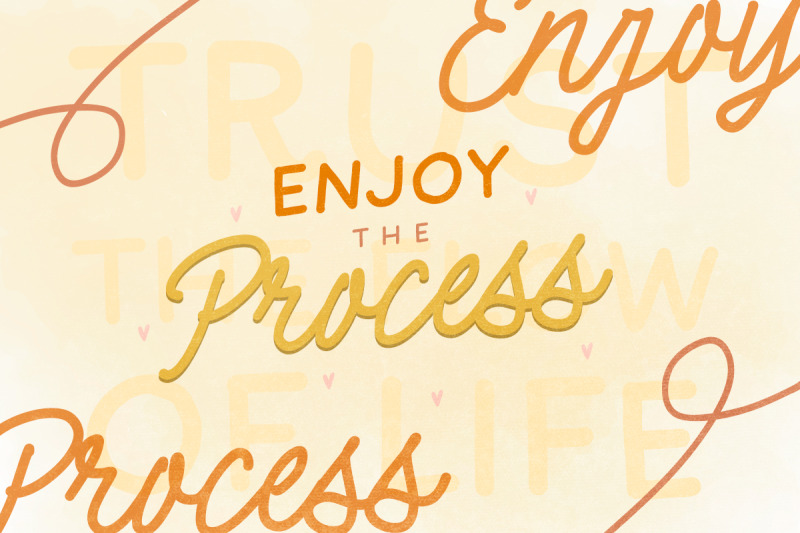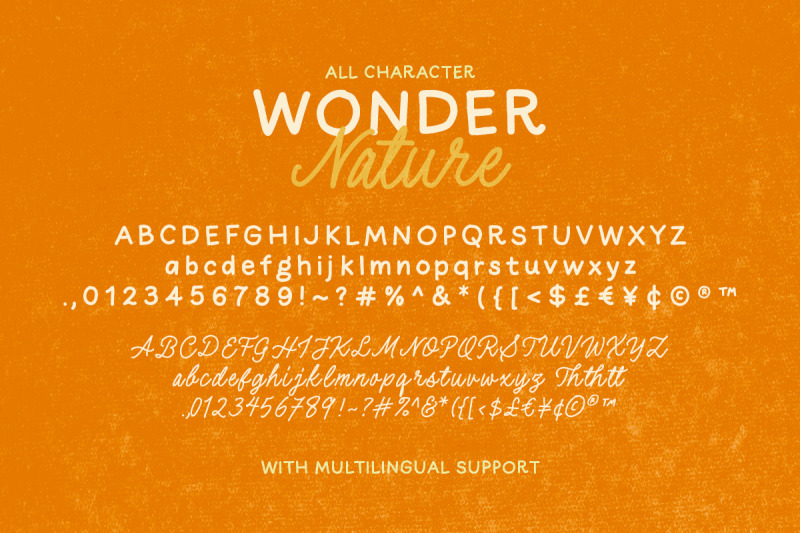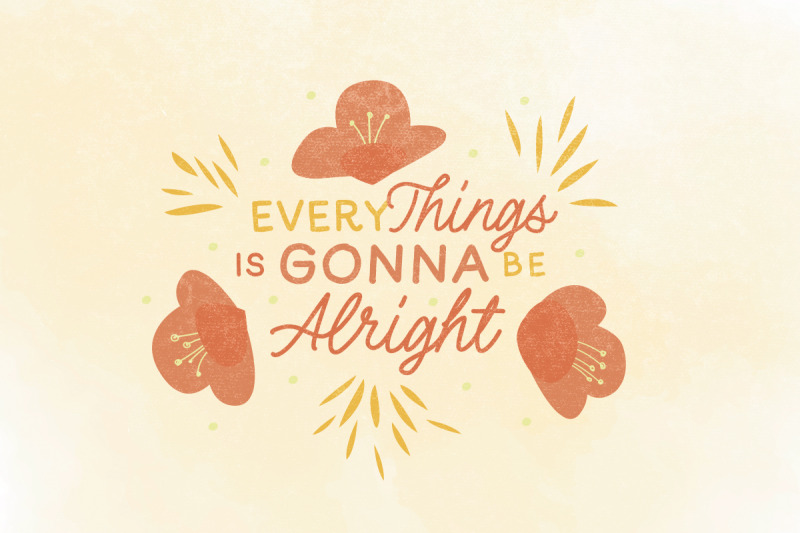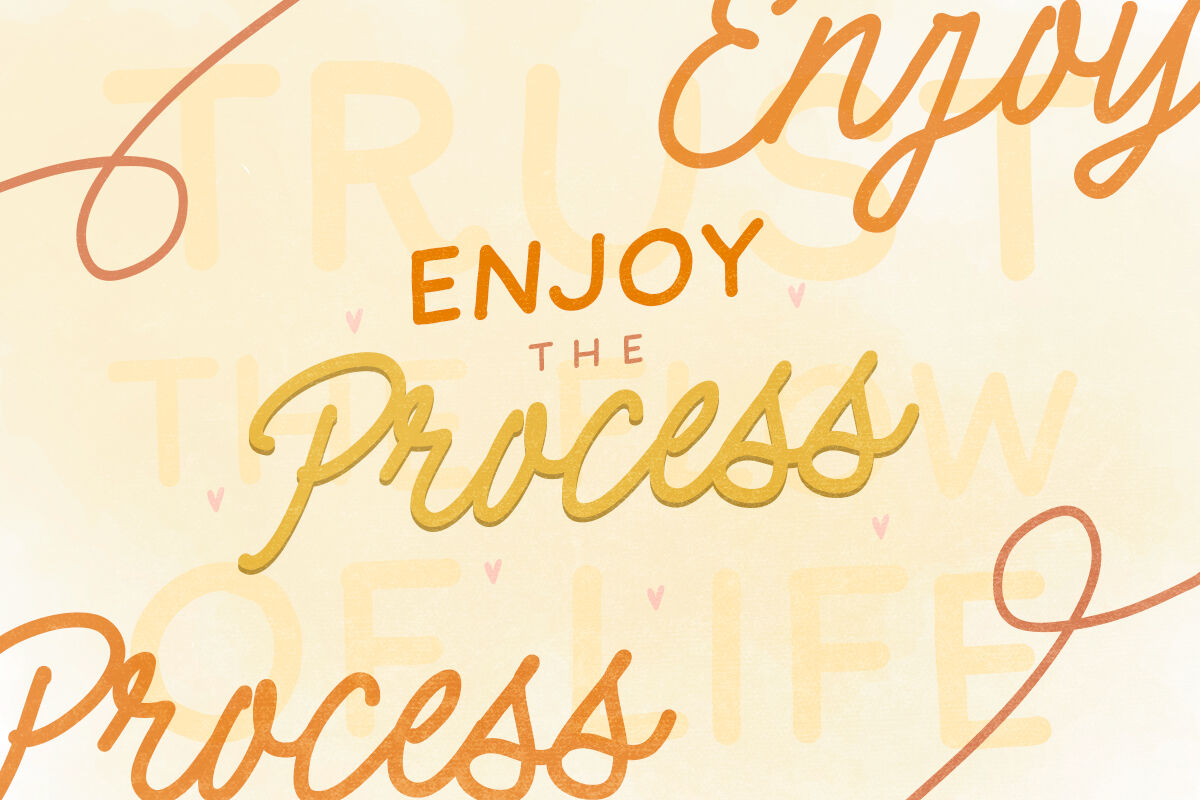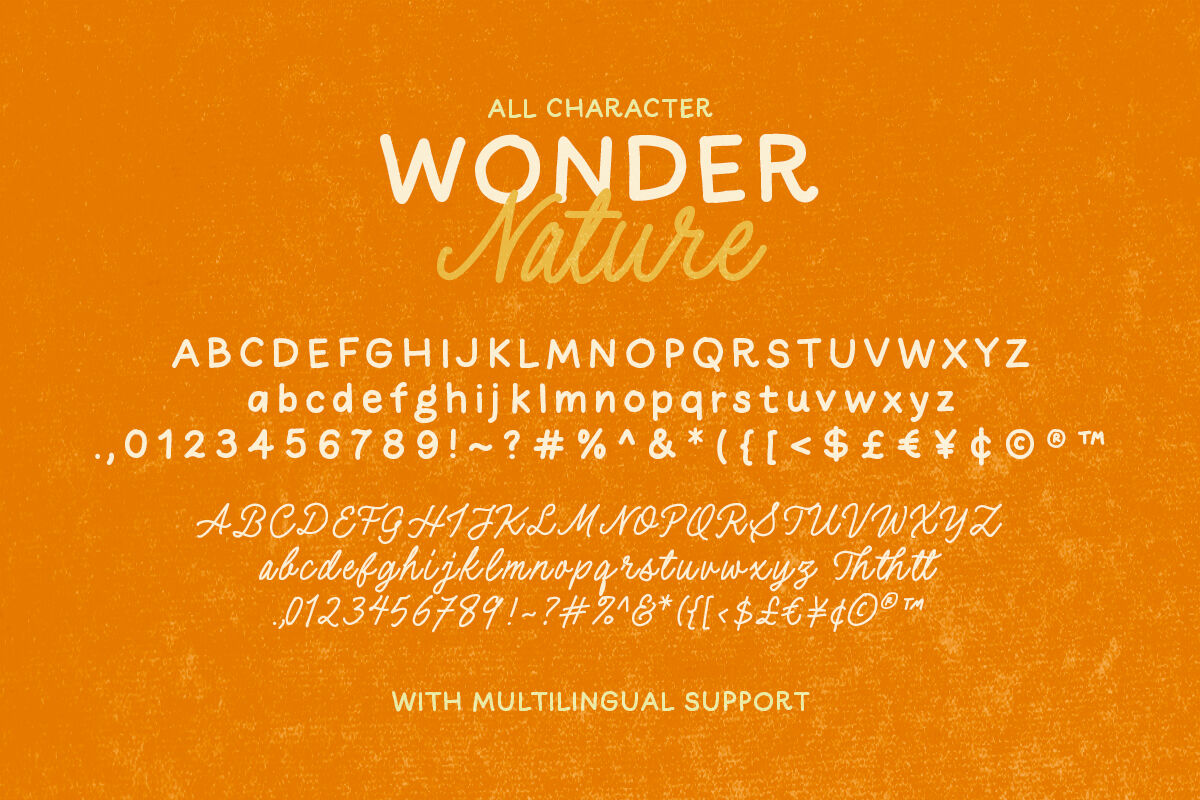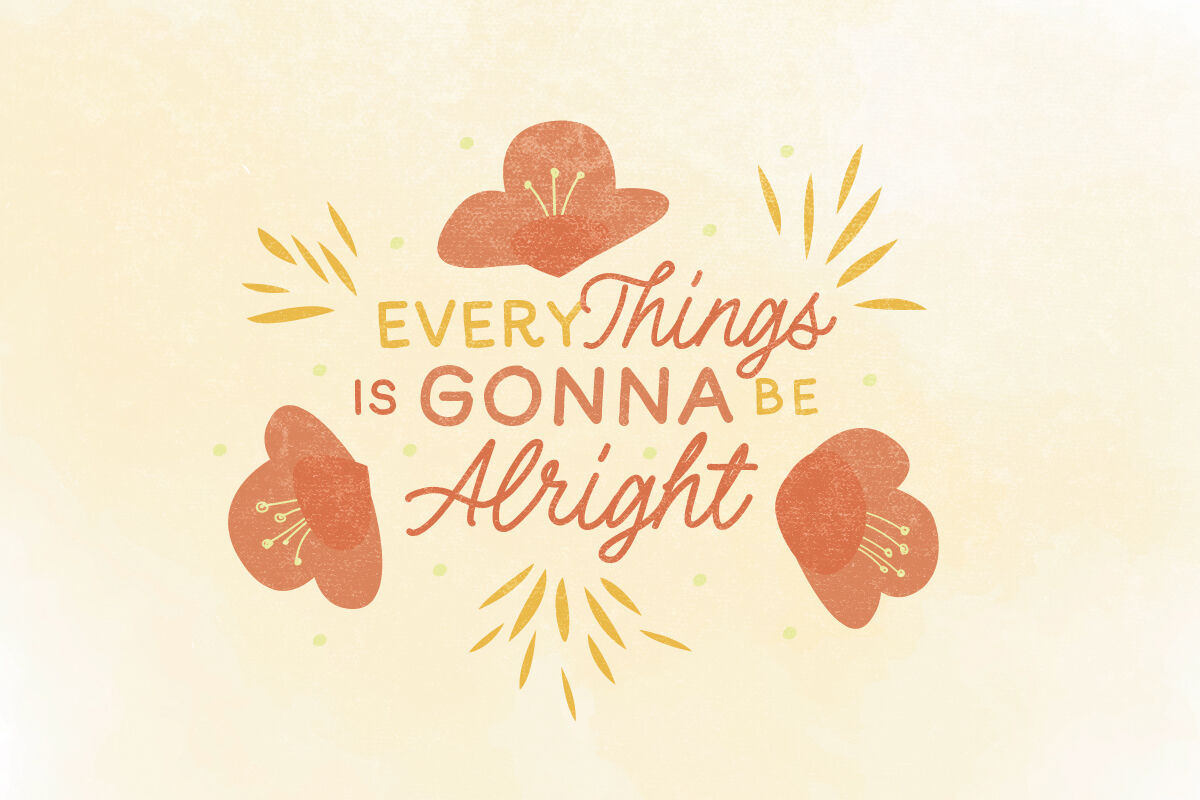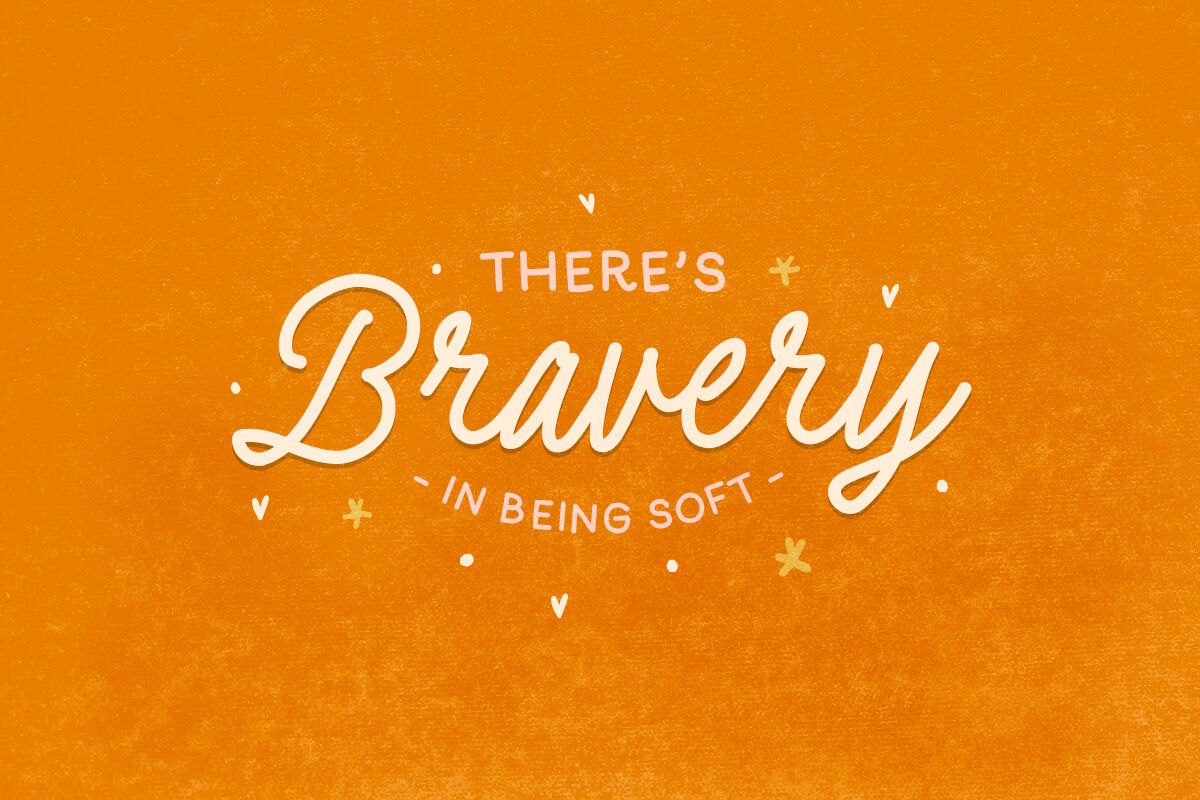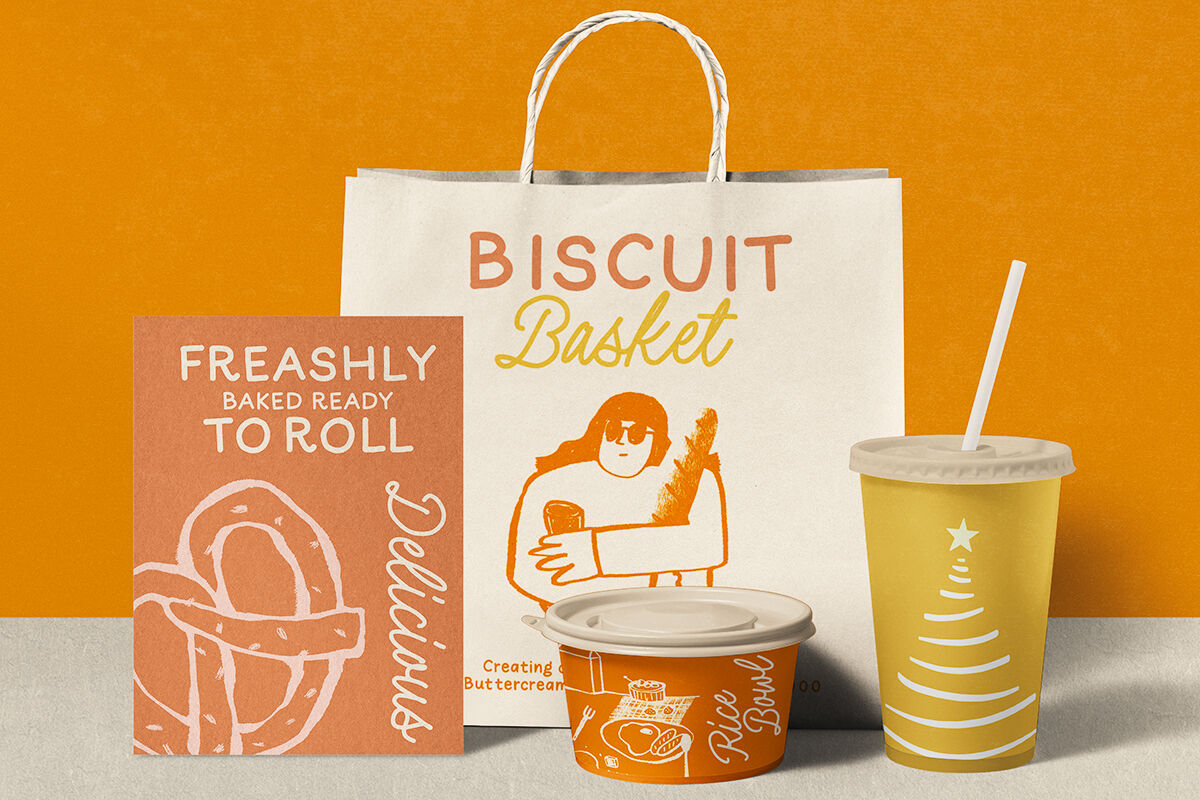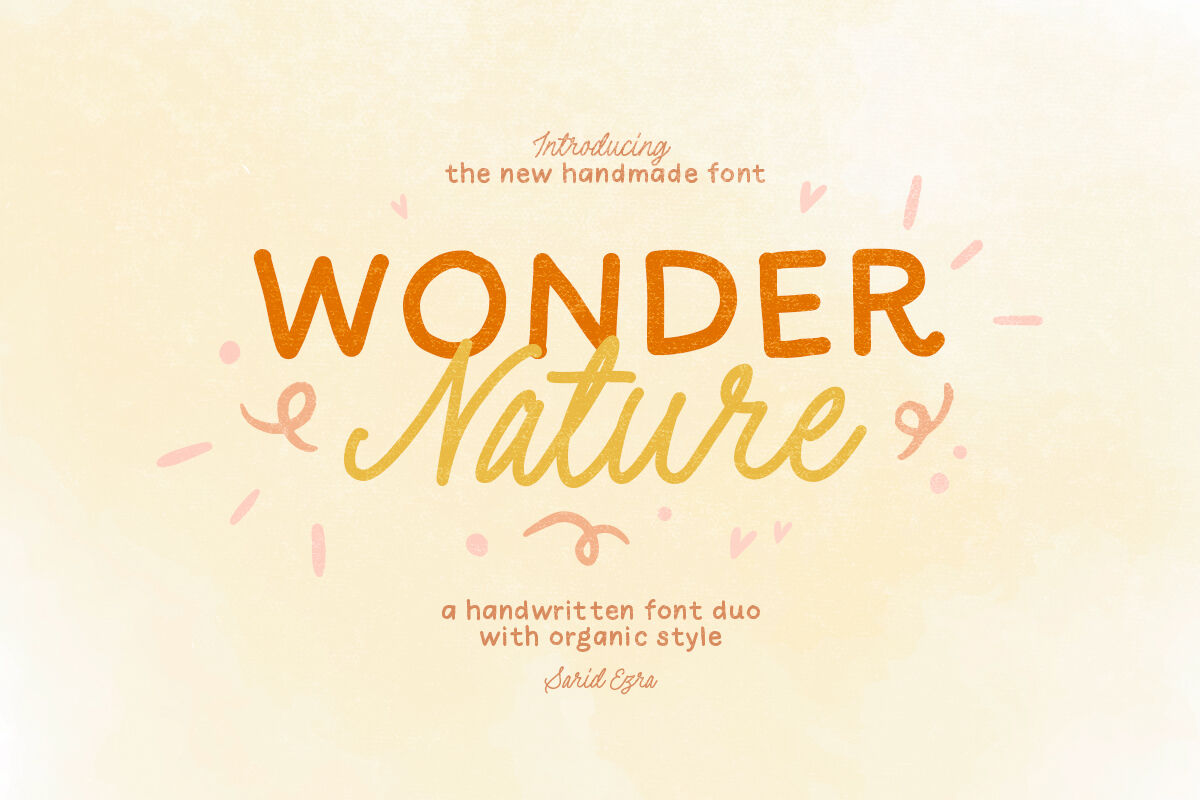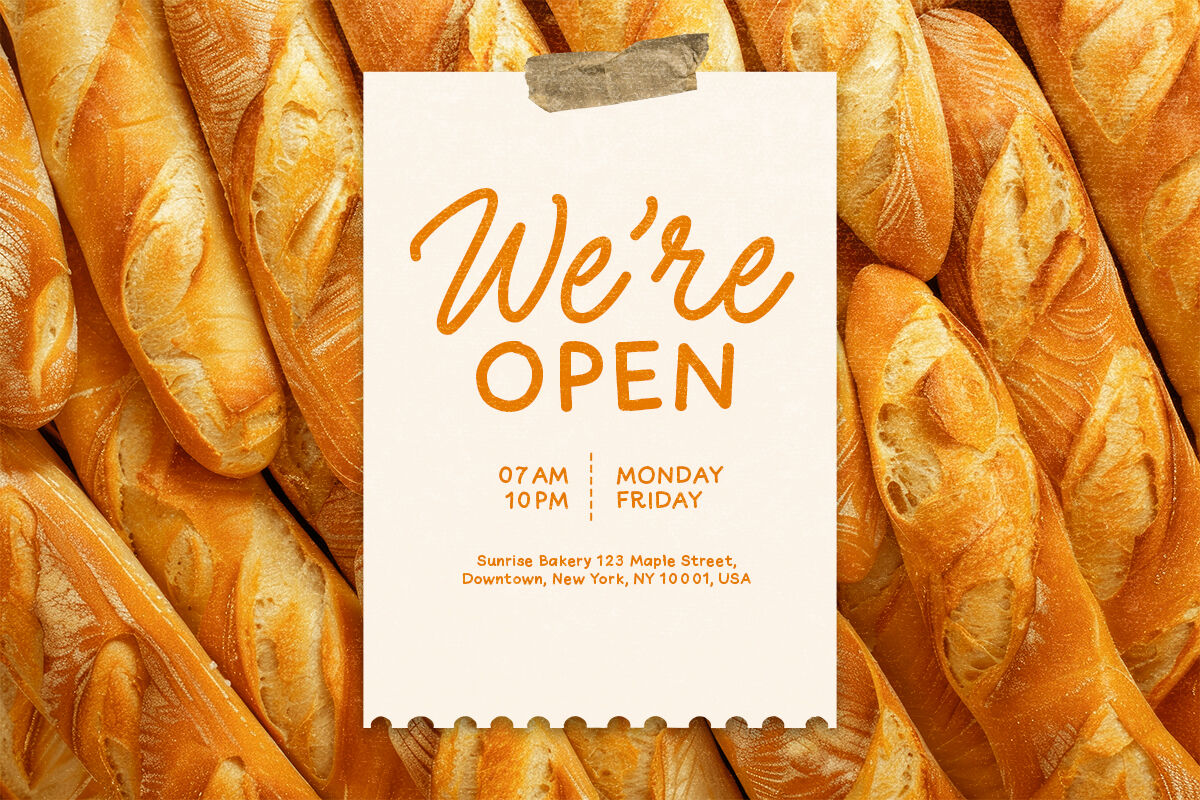
Wonder Nature - Monoline Font Duo
Say hello to Wonder Nature — a delightful handwritten monoline font duo featuring both Script and Sans styles that perfectly complement each other. Whether you're designing for weddings, branding, or heartfelt quotes, Wonder Nature adds a whimsical, handcrafted touch to any project. Plus, with full multilingual support, your message shines across the globe.